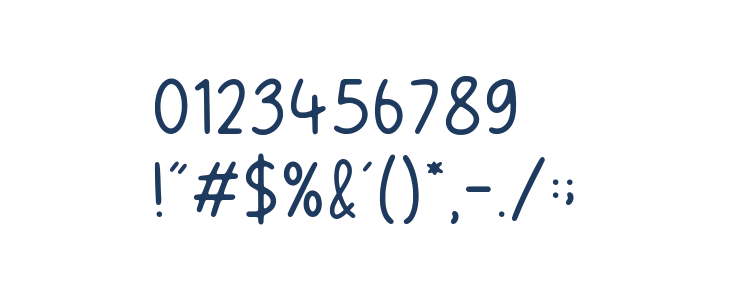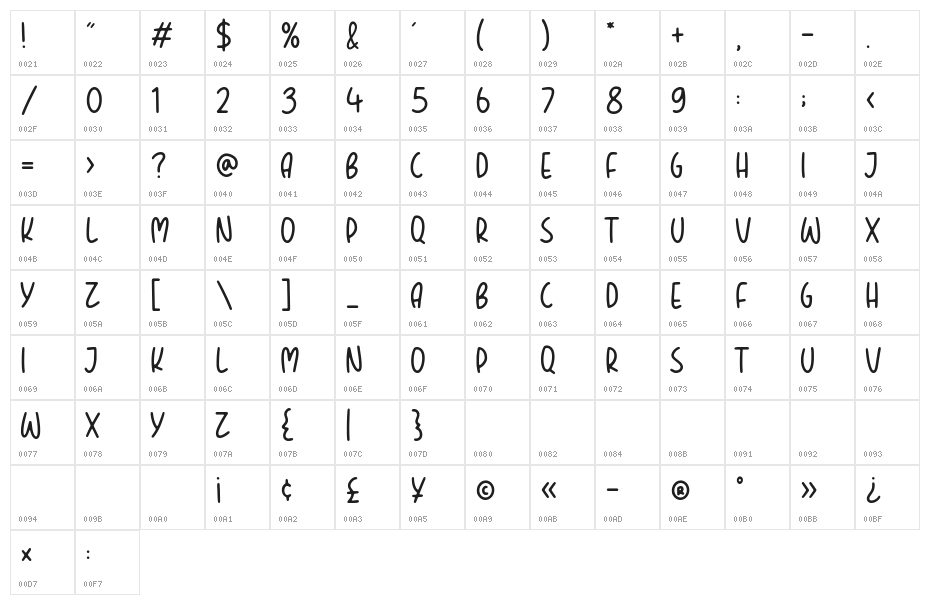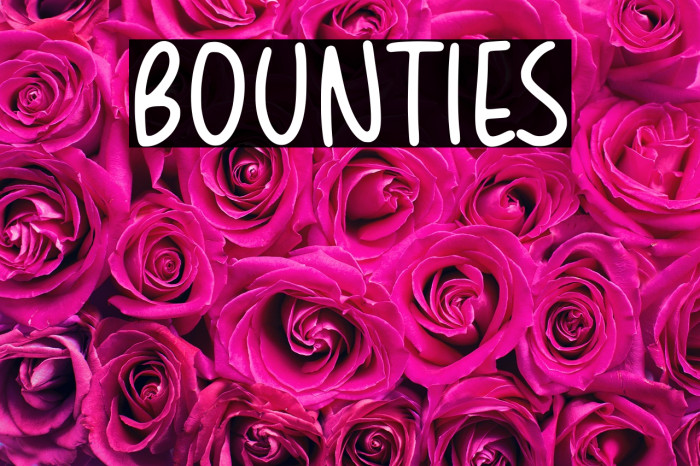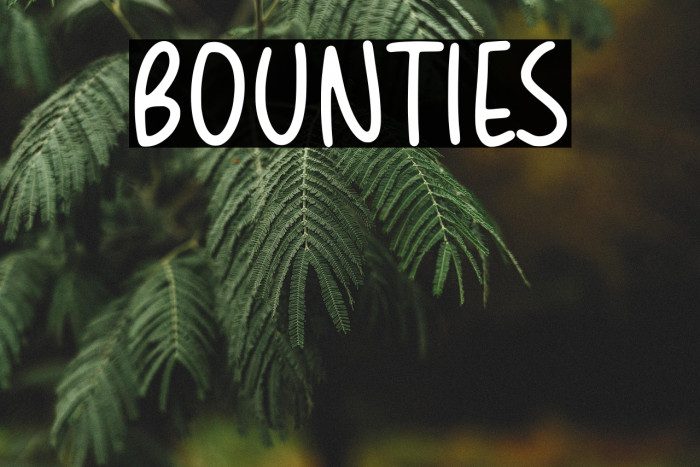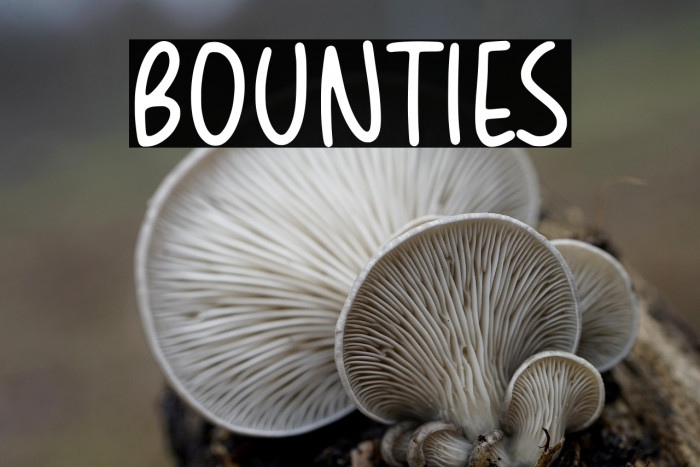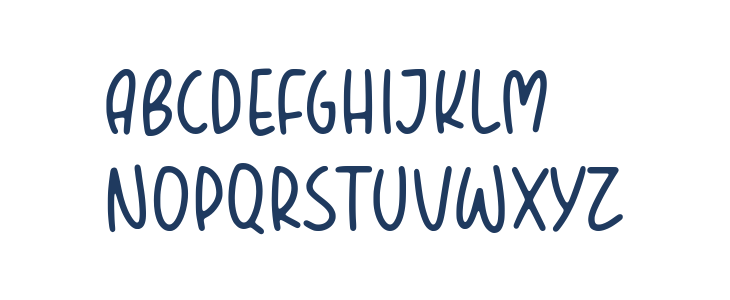
BOUNTIES Font
BOUNTIES Description
This font features a playful and casual handwritten style, characterized by its smooth, rounded edges and slightly irregular strokes that give it a friendly and approachable appearance. The letters are evenly spaced, providing a clean and organized look while maintaining a sense of spontaneity. The uppercase and lowercase letters are distinct yet harmonious, with a consistent line weight that ensures readability. The numerals and special characters are designed to match the overall style, making the font versatile for various applications. Its informal nature makes it ideal for projects that require a personal touch.
| Overall Style | Casual |
| Use Case | Headlines, Logos, Informal Text |
| Proposed Projects | Ideal for greeting cards, invitations, children's books, and casual branding projects. |